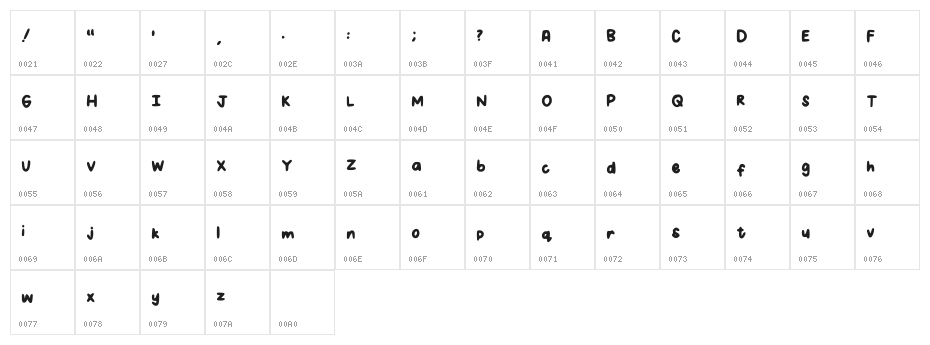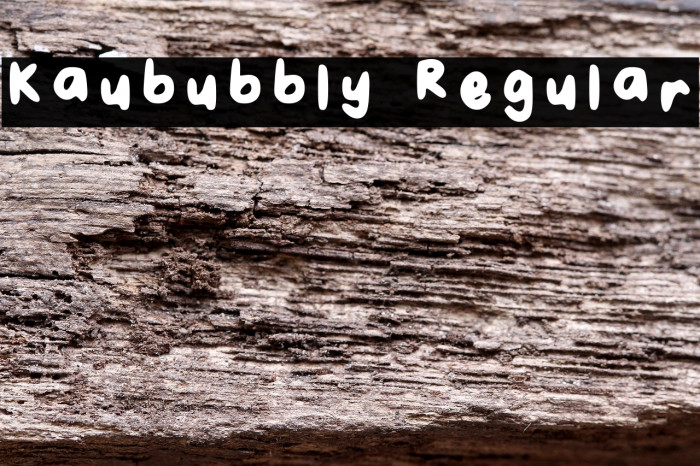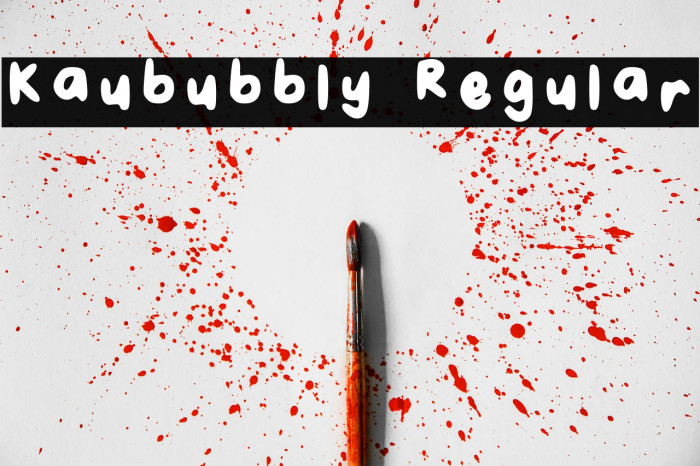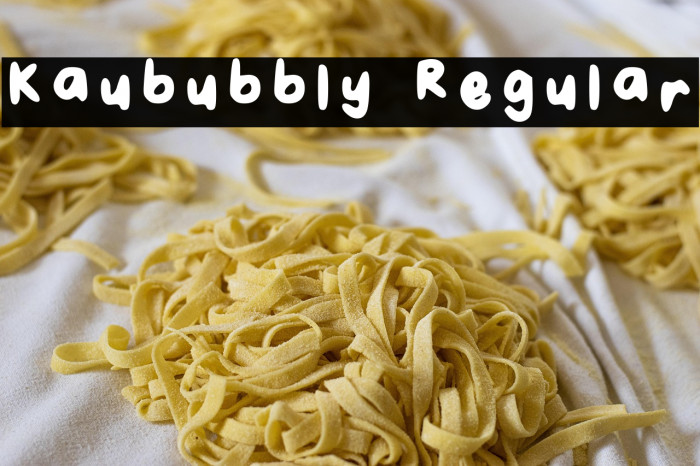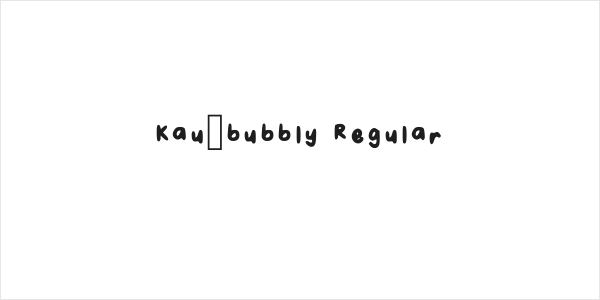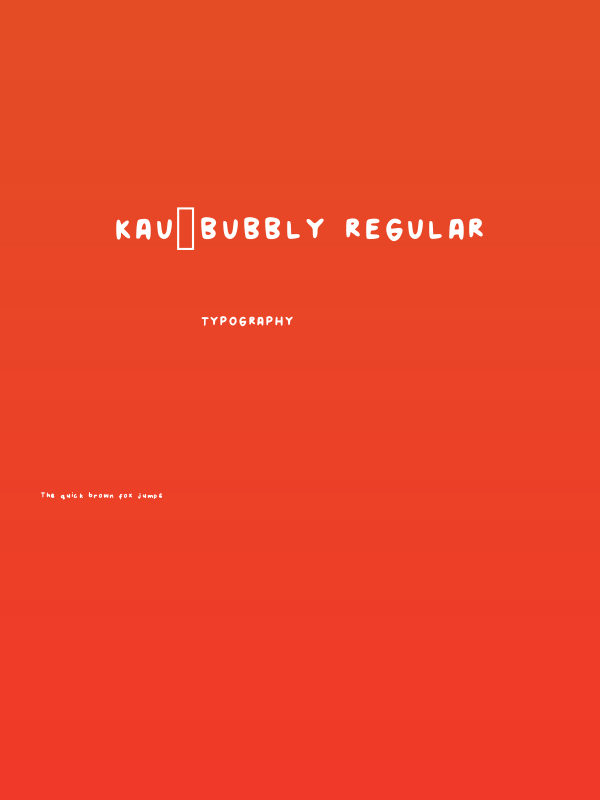
Kau_bubbly Regular Font
Kau_bubbly Regular Description
This playful and whimsical font features rounded, bubbly characters that exude a sense of fun and creativity. The letters are bold and slightly irregular, giving them a hand-drawn appearance that adds a personal touch to any design. The font maintains a consistent weight throughout, with medium contrast between the strokes. Its unique style makes it perfect for projects that aim to convey a lighthearted and approachable feel. The character spacing is normal, ensuring readability while maintaining its distinctive charm.